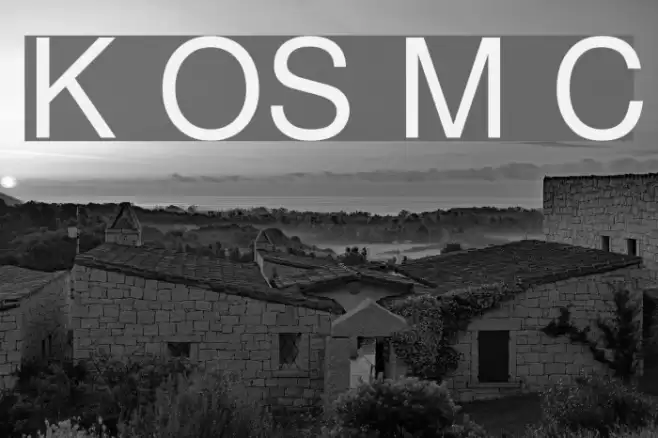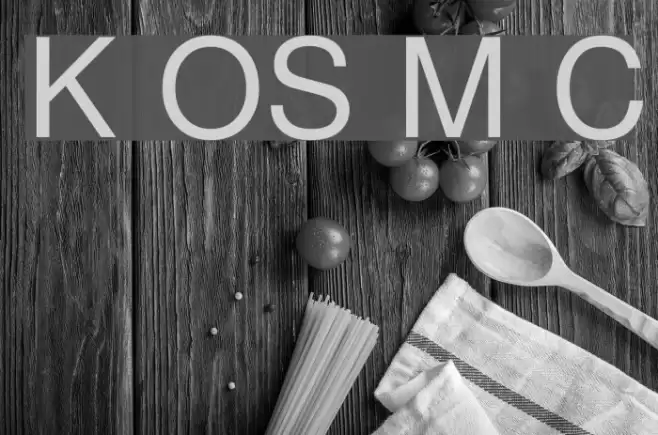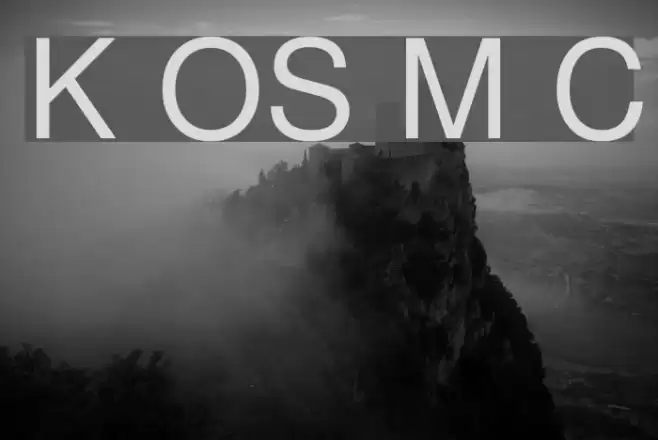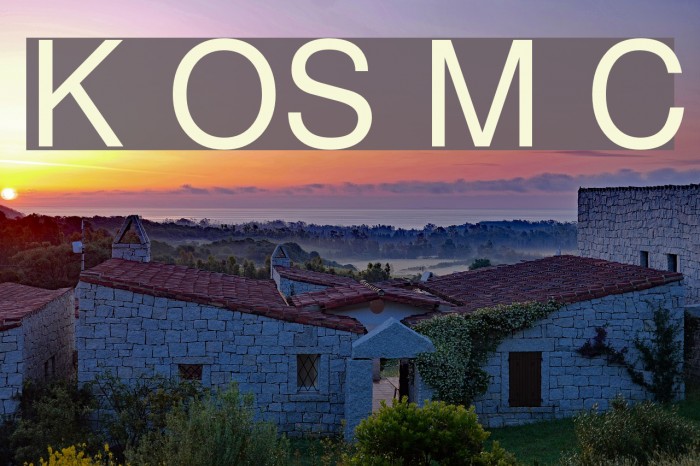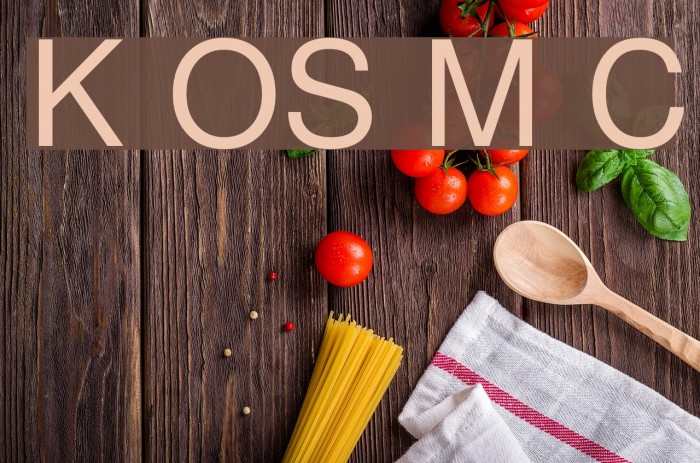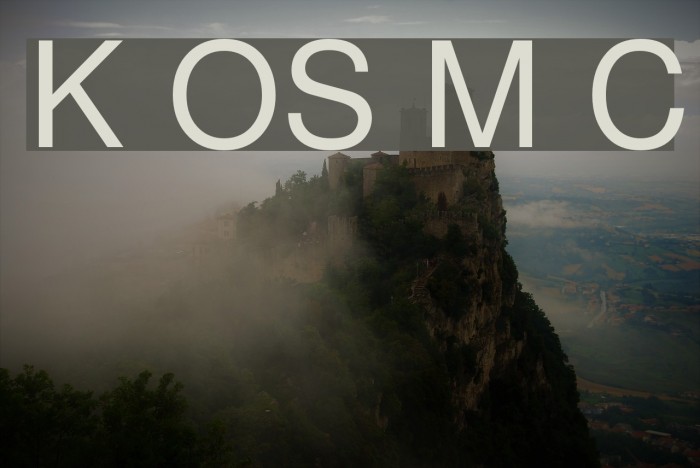
Khmer OS Metal Chrieng
This font features a clean and modern sans-serif design, characterized by its uniform stroke width and geometric shapes. The uppercase letters are bold and assertive, while the lowercase letters maintain a consistent and harmonious appearance. The numerals are clear and easy to read, making them suitable for various applications. The special characters are well-defined, ensuring versatility in design projects. Overall, this font exudes a contemporary and professional aesthetic, making it ideal for digital and print media.
A modern sans-serif font with geometric shapes and uniform stroke width.
- Proposed Projects: Ideal for web design, corporate branding, digital media, and print materials.